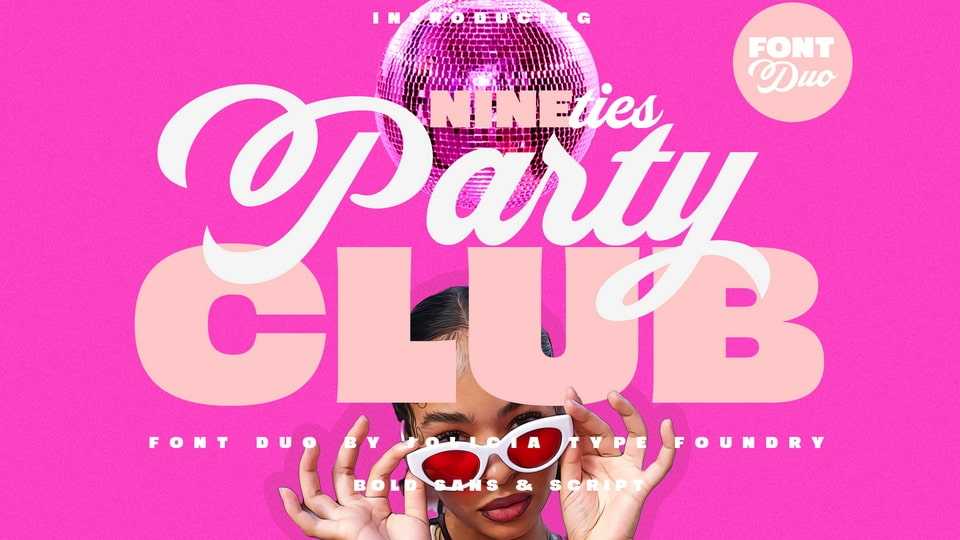
Download Nineties Party Club font, a bold retro typeface that combines a striking sans serif with a thick, energetic script. This powerful pairing delivers a fun and nostalgic vibe, perfect for designs that demand attention with a throwback twist.